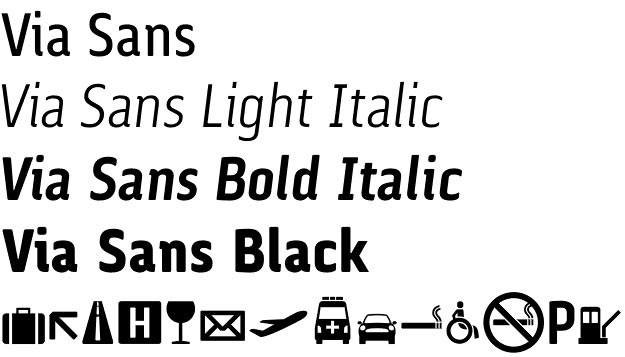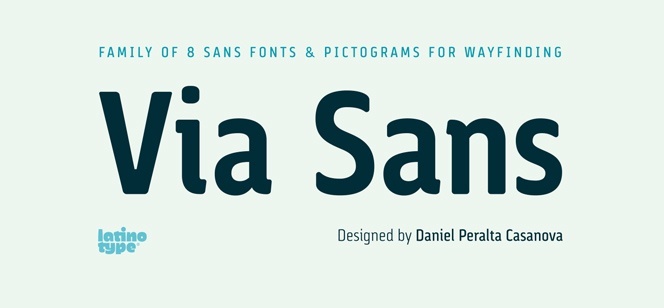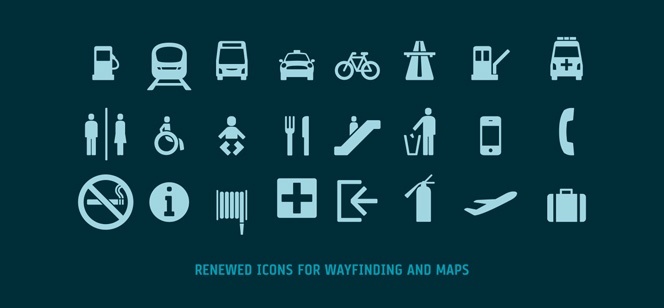
Via Sans font
Via Sans font by Daniel Peralta Casanova (Latinotype foundry) is a wayfinding typeface inspired by classics like the Bauhaus Steile Futura and the German traffic font standard Din 1451. Via Sans font family shares some Neo-Humanist features like large x-height, angled round shapes and large apertures. It is designed for traffic signs, with excellent legibility from a distance, a tight spacer, making it a very good alternative when composing long phrases. Its rounded corners are designed to reduce the reflections from the sign surfaces.
Via Sans font family comes in nine variations: 4 weights (from Light to Black), 4 italics, and a set of pictograms for wayfinding and maps. Additional options provide European accents marks, ligatures, fractions, ordinals and tabular numbers.
Designer: Daniel Peralta Casanova
Publisher: Latinotype